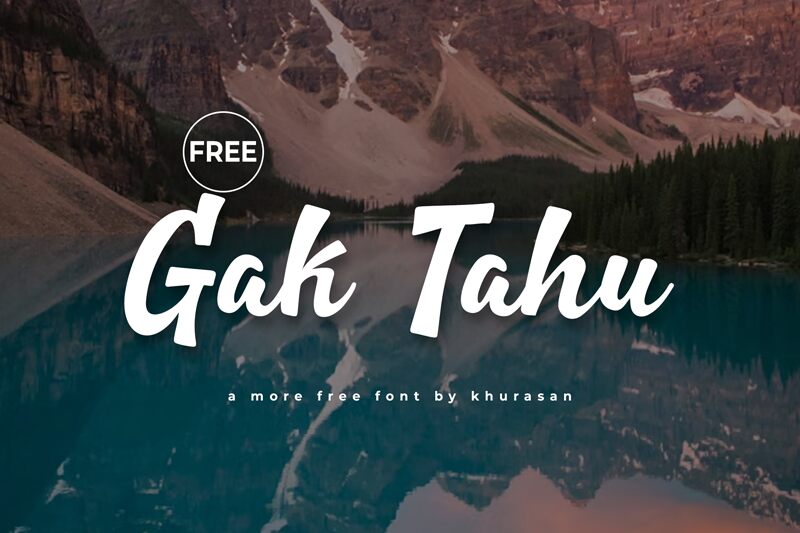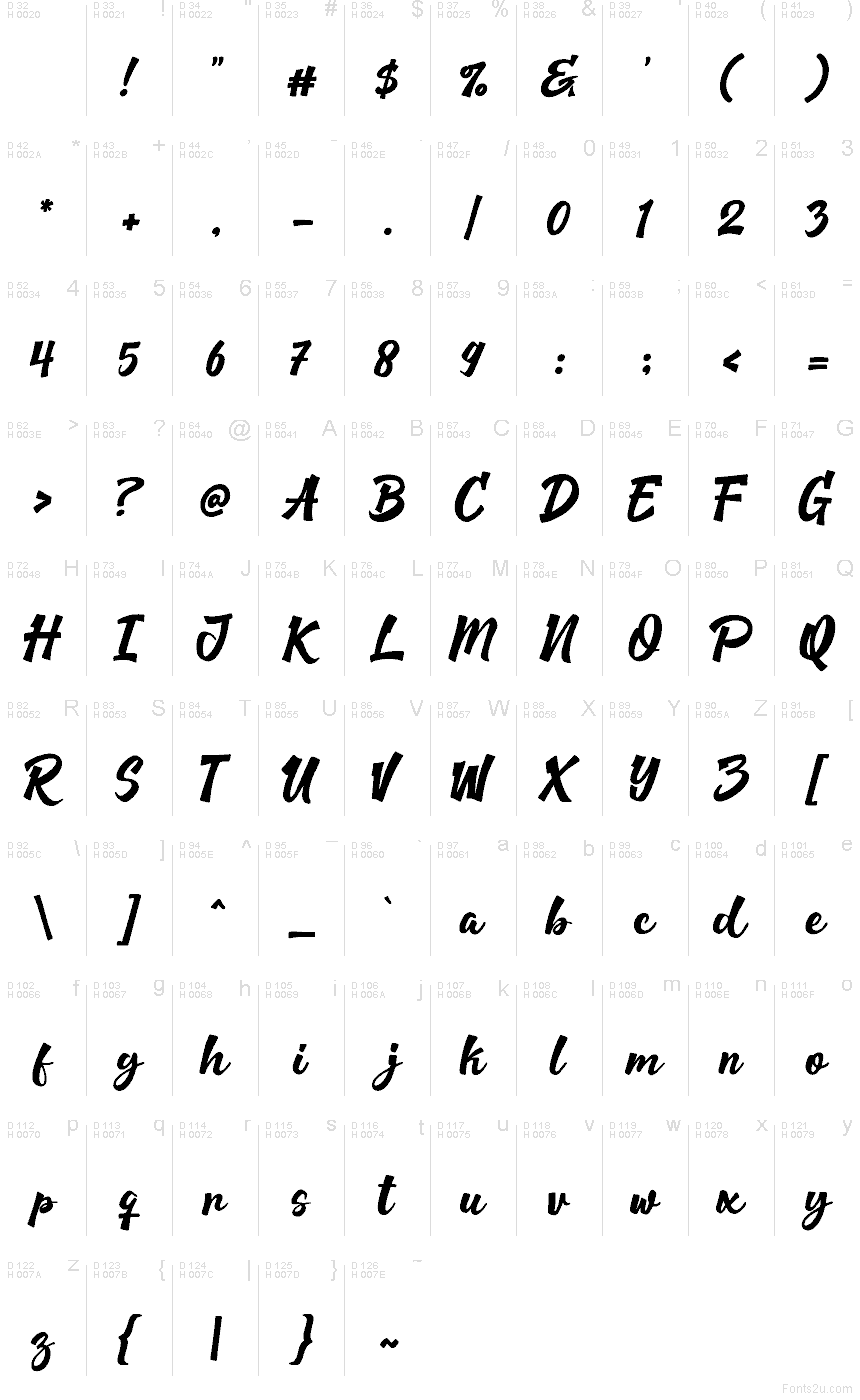
Gak Tahu
Gak Tahu font by Khurasan is a free brush font that gives you that bold, hand-painted look without sacrificing readability. Its smooth, slightly slanted strokes feel like fast, confident marker lines—thick, inky, and energetic—yet the letters stay clear and evenly spaced. The result is a script that feels spontaneous and human, but still behaves reliably in real layouts and tight compositions.
Using Gak Tahu, you can bring a lively, handwritten punch to social media graphics, logos, product packaging, posters, café menus, and merch designs. This free font shines at larger sizes where its textured strokes and flowing rhythm can really breathe. Pair it with a clean sans-serif for taglines or body text, and let Gak Tahu handle the loud, expressive headlines and main wordmarks.